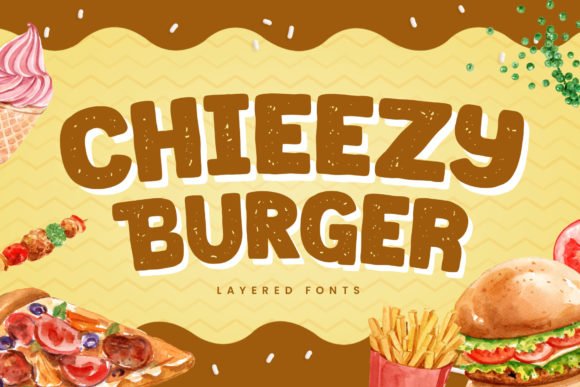
The Perfect Font for a Friendly Touch
Remember that moment when you were brainstorming ideas for a birthday card and you just couldn’t find the right words to express your feelings? The perfect phrase and the perfect font can make all the difference. That’s where Chieezy Burger Font comes in – a delightful display font that is sure to bring a smile to the recipient’s face.
Chieezy Burger Font is designed to be easy to read and convey a sense of friendliness, making it perfect for various creative projects. Whether you’re working on digital designs, presentations, or crafting handmade cards, this font has the potential to become your go-to choice. Its playful and approachable nature makes it valuable for designers looking to add a personal touch to their work.
Chieezy Burger Font Key Features
- Font Family: Chieezy Burger Font is a unique, hand-drawn font designed specifically for fast-food and casual dining establishments.
- Unique Characteristics: Chieezy Burger Font features a playful, handwritten style with a bold and casual tone, perfect for capturing the attention of fast-food enthusiasts.
Chieezy Burger Font Review
Overall, the Chieezy Burger Font is a fun and playful typeface that can add a lighthearted touch to your designs. ✨ I appreciate the unique and quirky characteristics of this font, which make it stand out from more traditional font options. The font’s imperfections and irregularities give it a charming, handmade feel that’s perfect for casual or creative projects.
- ✨ Unique and quirky characteristics that add personality to designs
- ✨ Perfect for casual or creative projects where a lighthearted tone is desired
- ✨ Great for food-related branding or marketing materials, such as restaurants or food trucks
However, there are some limitations to consider when working with the Chieezy Burger Font. ⚠️ The font’s irregularities and imperfections can sometimes make it difficult to read, especially in smaller text sizes. Additionally, the font’s unique characteristics may not be suitable for all types of projects or audiences.
- ⚠️ May be difficult to read in smaller text sizes due to irregularities and imperfections
- ⚠️ May not be suitable for all types of projects or audiences due to its quirky and playful nature
Overall, I think the Chieezy Burger Font is a great choice for designers who want to add a touch of whimsy and personality to their projects. While it may not be suitable for all types of designs, it’s a fun and unique option that’s perfect for the right project.
For best results, use Chieezy Burger Font for titles, headings, and emphasis. It’s ideal for creating a playful and casual atmosphere in your designs.
Common use cases include food menus, advertisements, and social media graphics.
Alternatives to Chieezy Burger Font
Great Vibes is a modern, cursive script font that works well for titles, headings, and promotional materials. It’s perfect for creating a fun, laid-back atmosphere. Great Vibes is a more elegant alternative to Chieezy Burger Font, with a softer and more refined feel.
When to use: Titles, headings, promotional materials, and any design that requires a playful yet sophisticated look.
Pacifico is a beautiful, elegant script font that’s ideal for creating a relaxed, beachy vibe. It’s a great choice for branding, packaging, and any design that requires a touch of sophistication. Pacifico is a more refined alternative to Chieezy Burger Font, with a more subtle and understated feel.